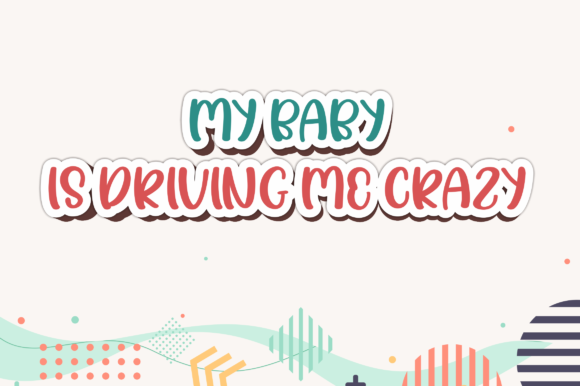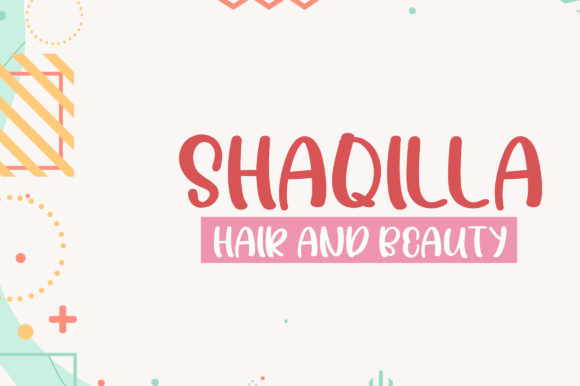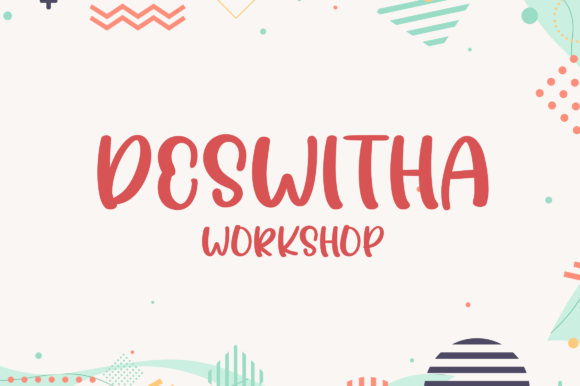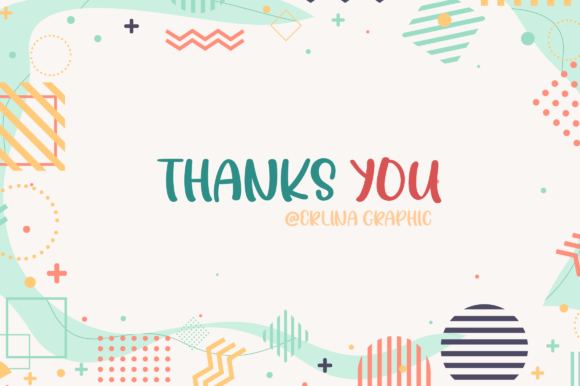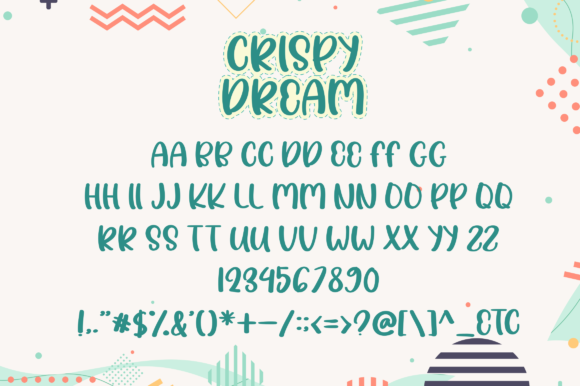
About Crispy Dream Font
Crispy Dream is a cute and playful handwritten font. Whether you’re using it for crafts, digital design, presentations, or making greeting cards, this font has the potential to become your favorite go-to font, no matter the occasion!